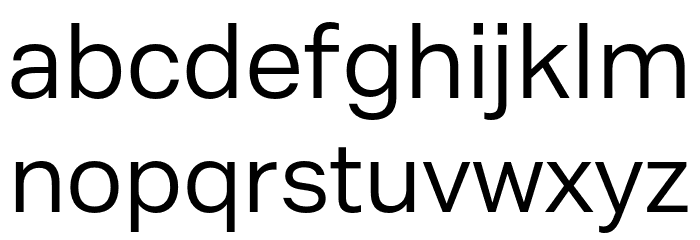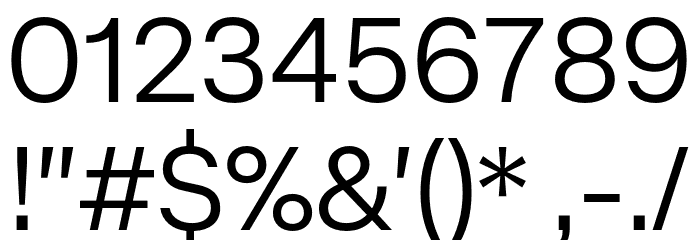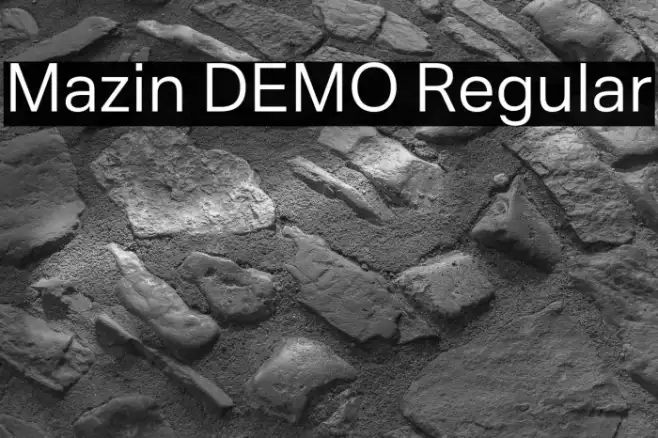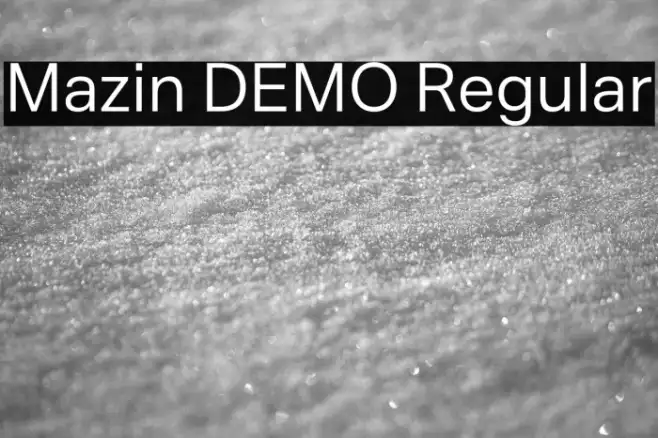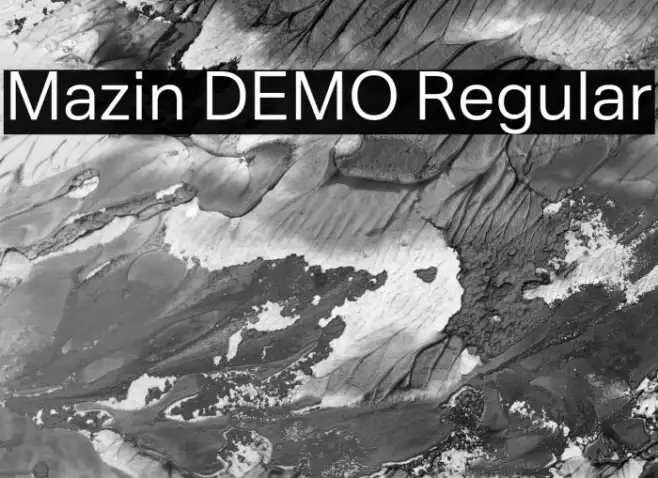
Mazin DEMO Regular Font
This font exhibits a clean and modern sans-serif style, characterized by its simplicity and clarity. The letterforms are uniform and geometric, providing a balanced and professional appearance. The uppercase and lowercase letters maintain consistent proportions, enhancing readability. Numerals are straightforward and align well with the overall design. Special characters are crafted with precision, ensuring they integrate seamlessly with the text. The font's design is versatile, making it suitable for a wide range of applications, from digital interfaces to print media.
A modern, clean sans-serif font with geometric letterforms.
- Proposed Projects: Ideal for web design, corporate branding, user interfaces, and editorial layouts.